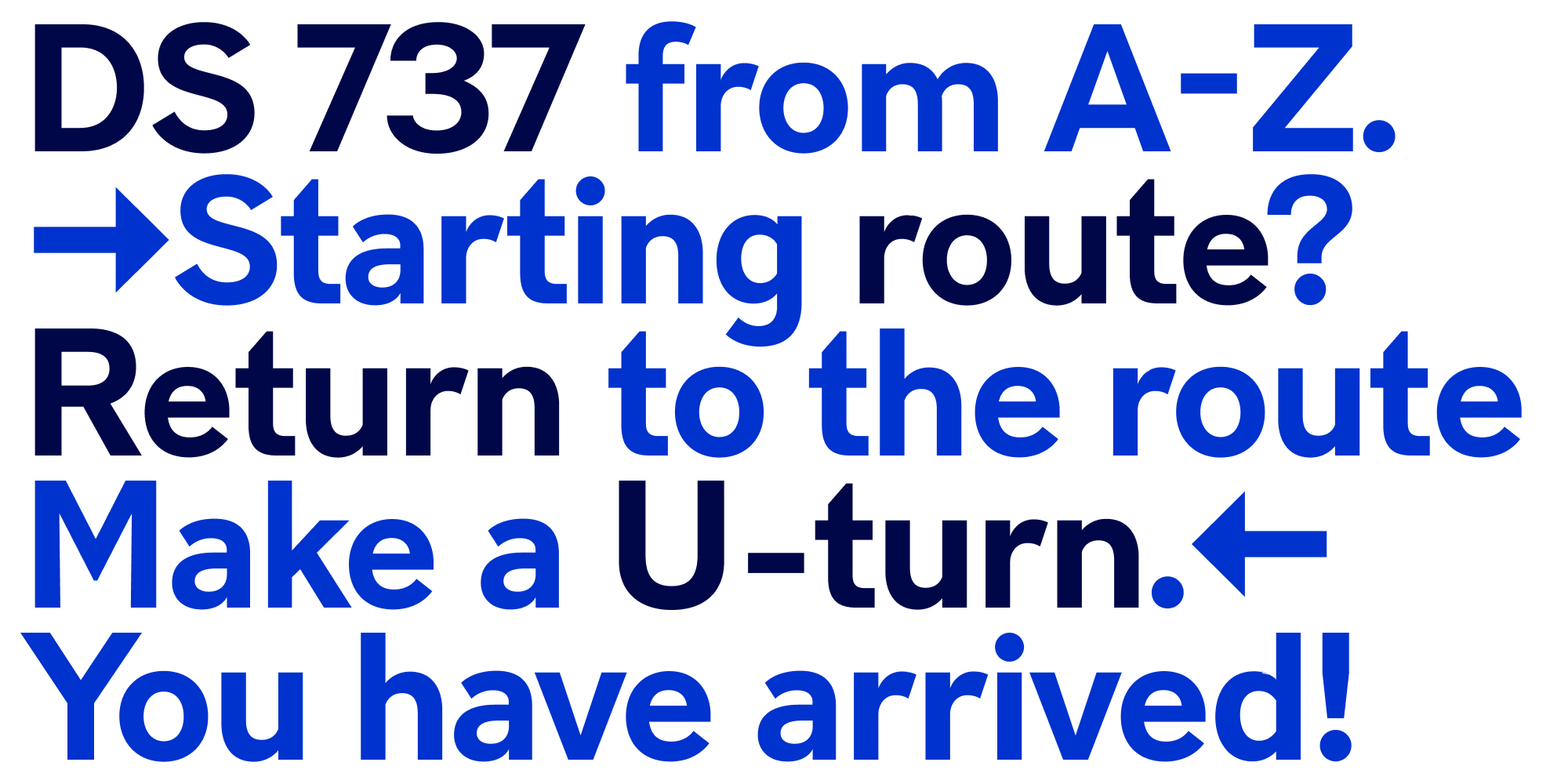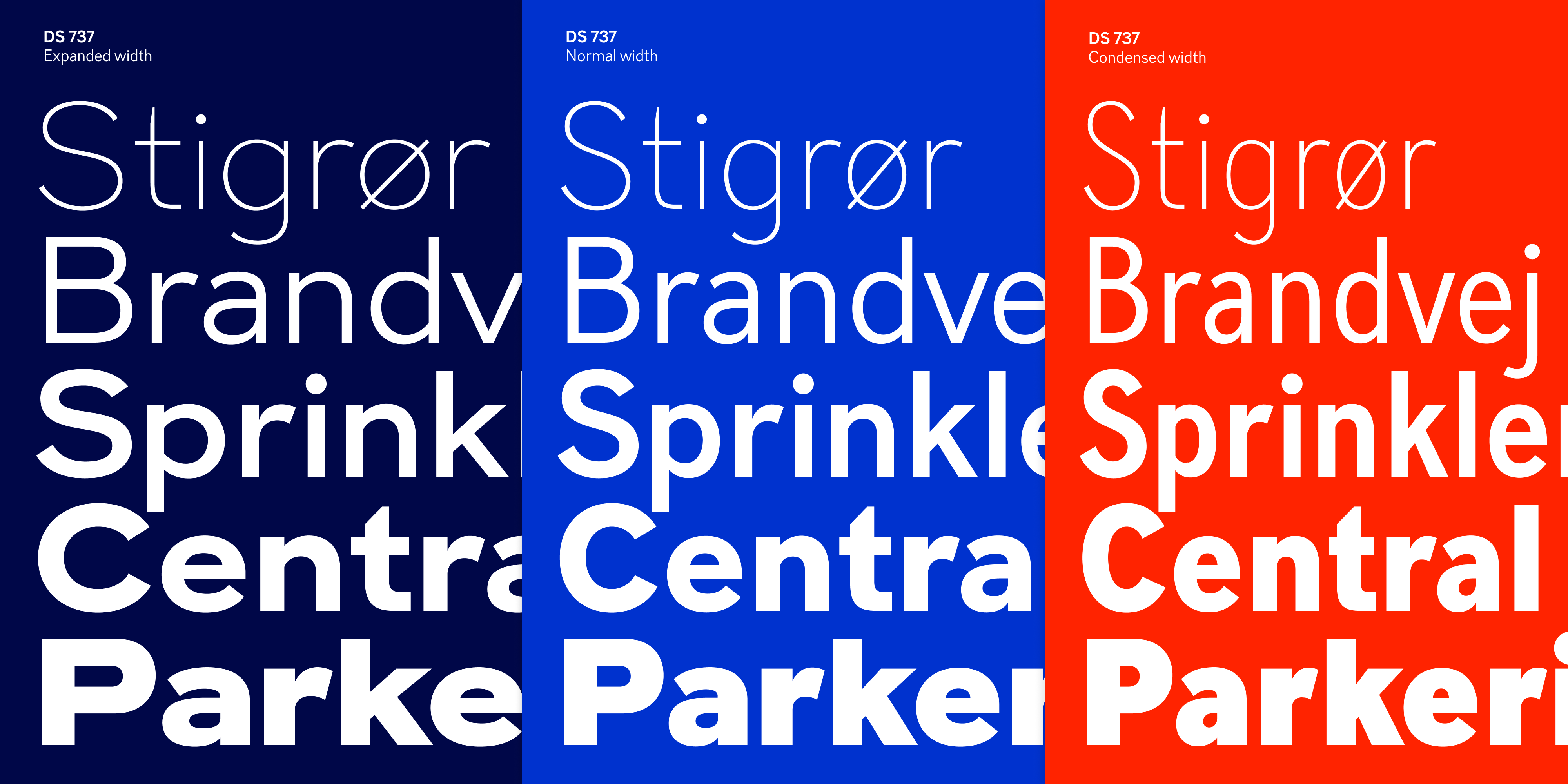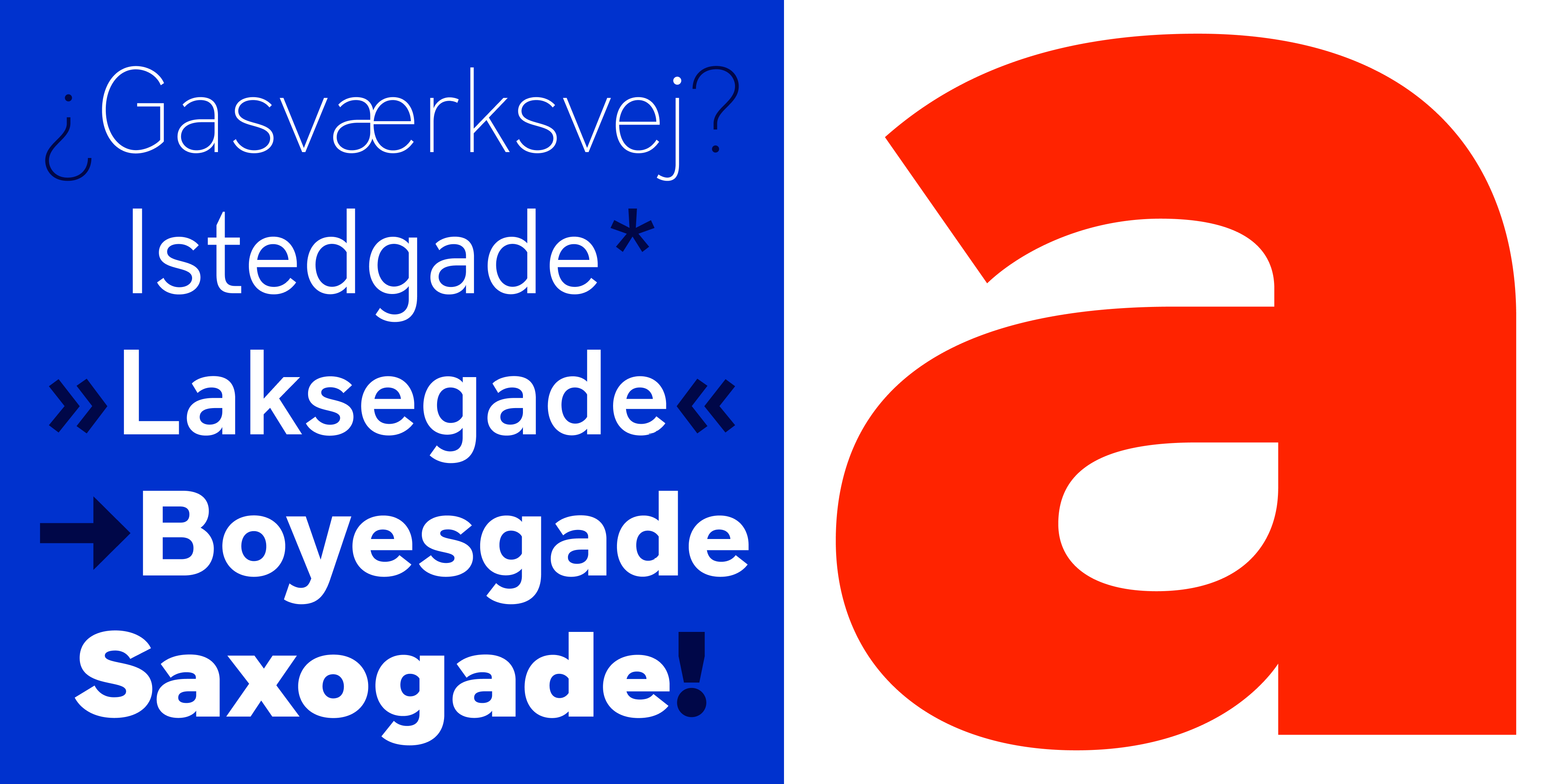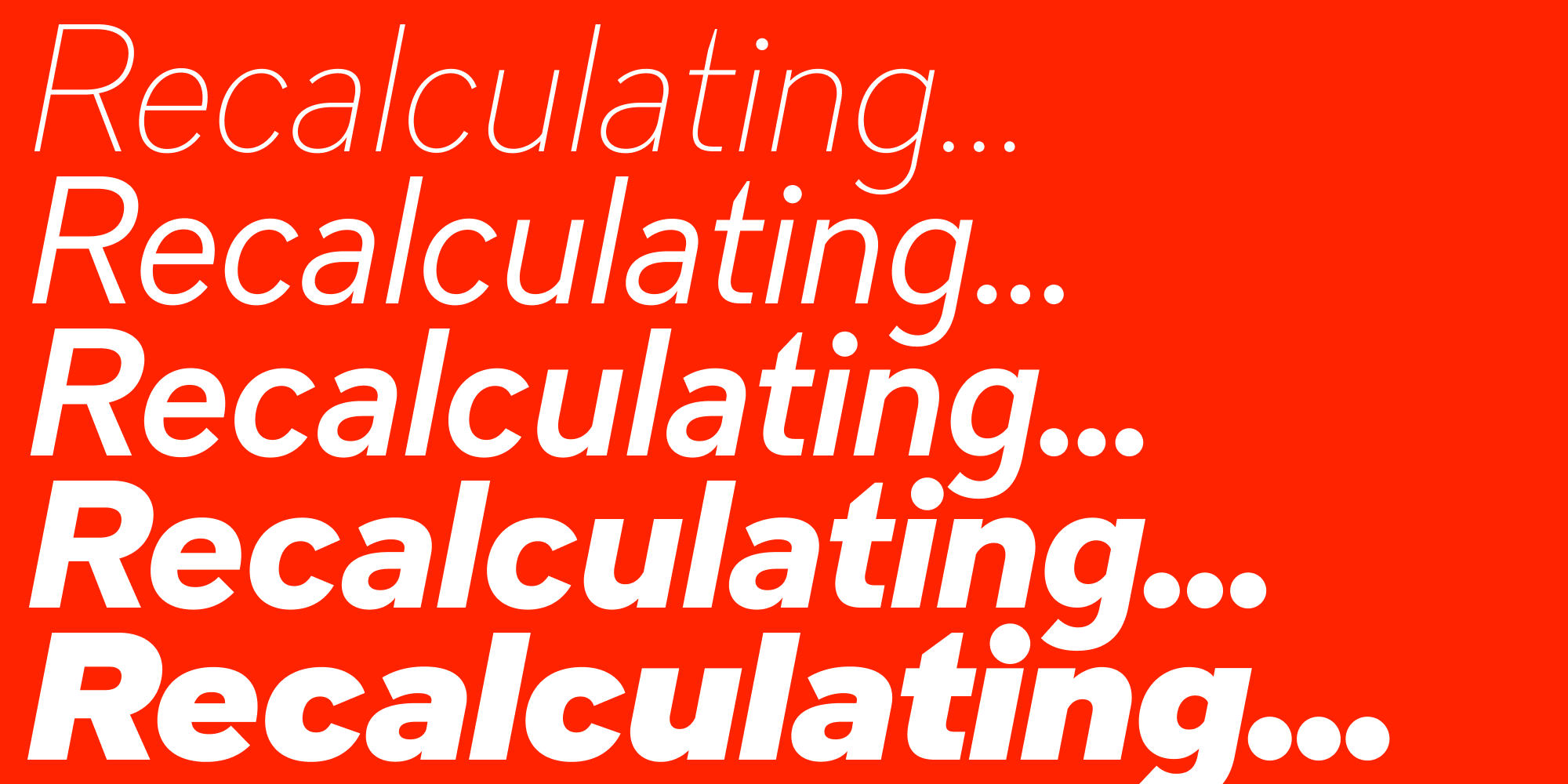
A utilitarian multifaceted workhorse sans serif that still oozes character, personalty and history.
DS737 is based on the official Danish signage typeface originally released in 1954. Back then there was only one cut and a very limited character set.
We wanted DS737 to be a functional typeface equally at home in digital and physical environments. A highly legible typeface that performs both in small text scenarios but with enough uniqueness to add flavour and character when put to use in a large size display setting.
DS737 is available in 27 individual styles across three widths, including corresponding italics.That’s 54 styles total resulting in a highly adaptable and versatile system of fonts.
DS737 supports all the open type features we’ve come to expect of contemporary typefaces, including a range of stylistic sets that let the user explore and tune the overall look and feeling of DS737, which ultimately adds to its wide range of use.